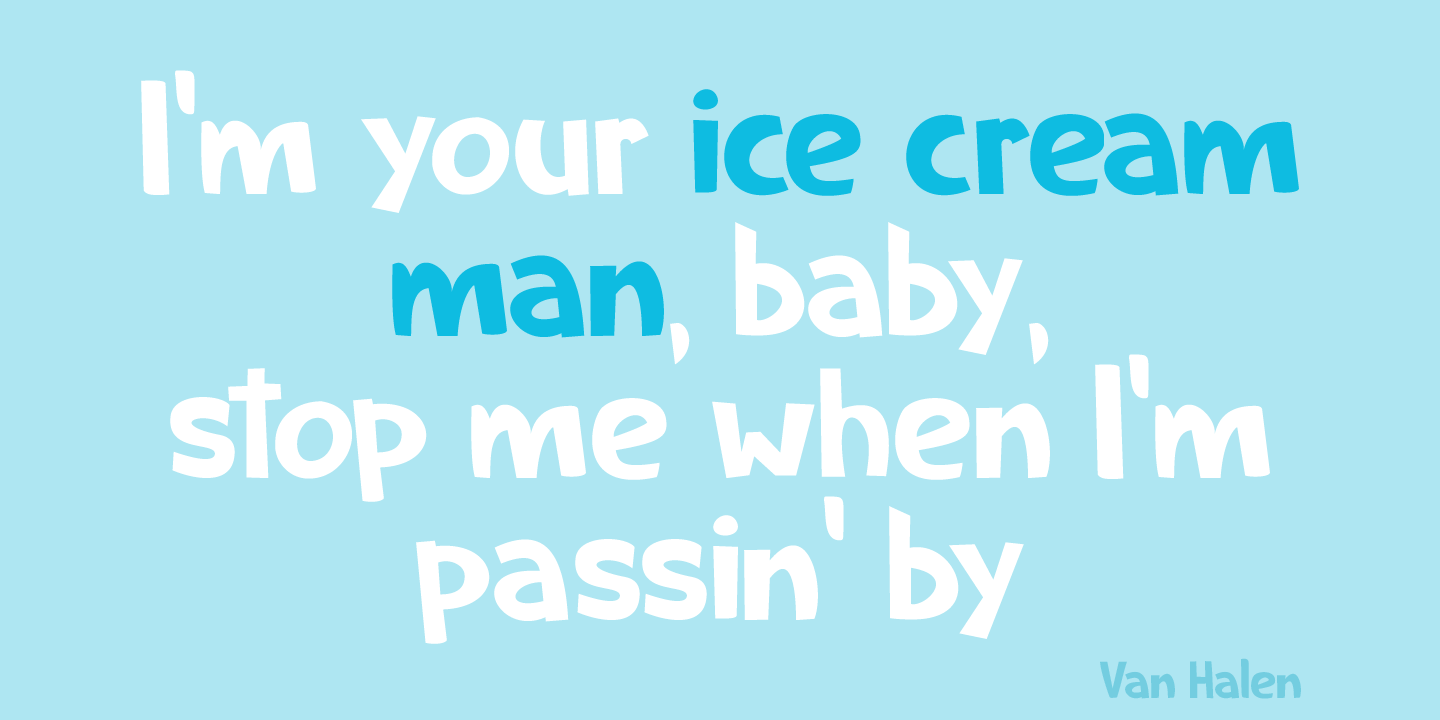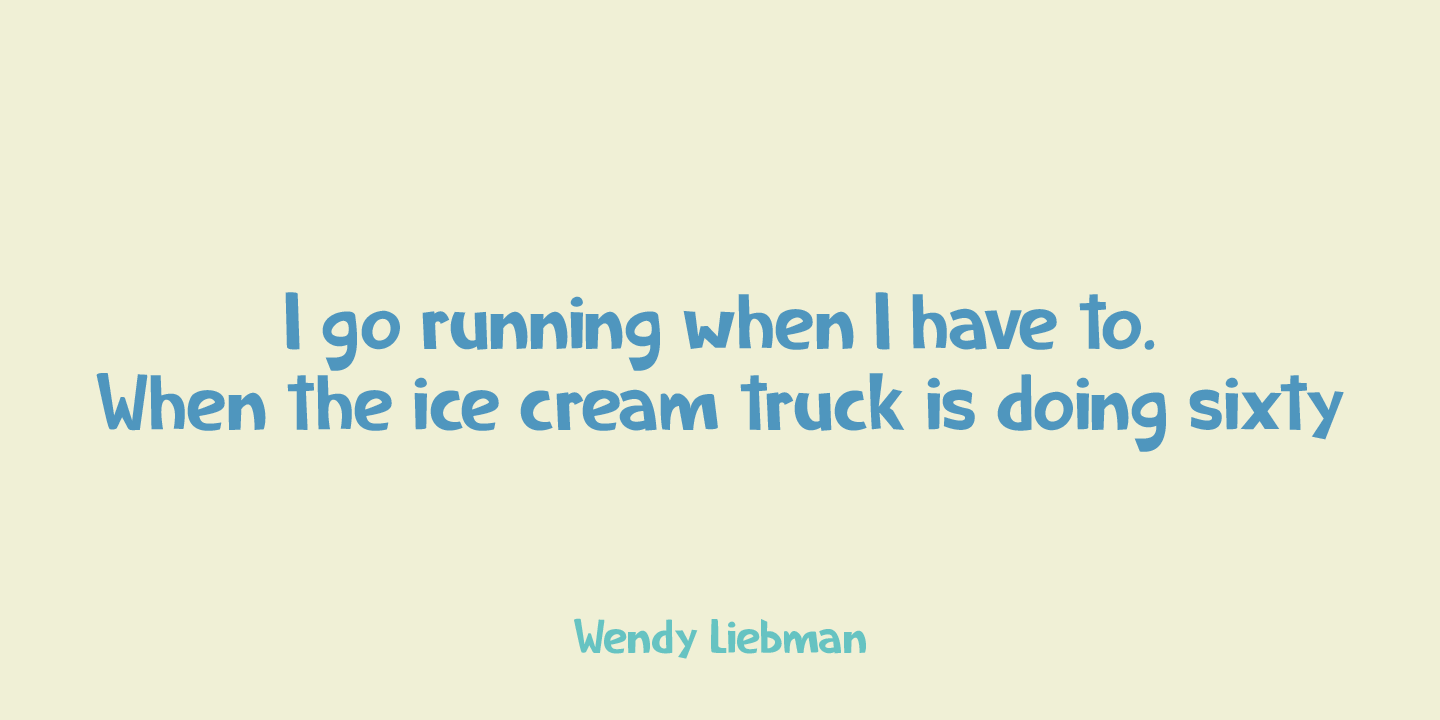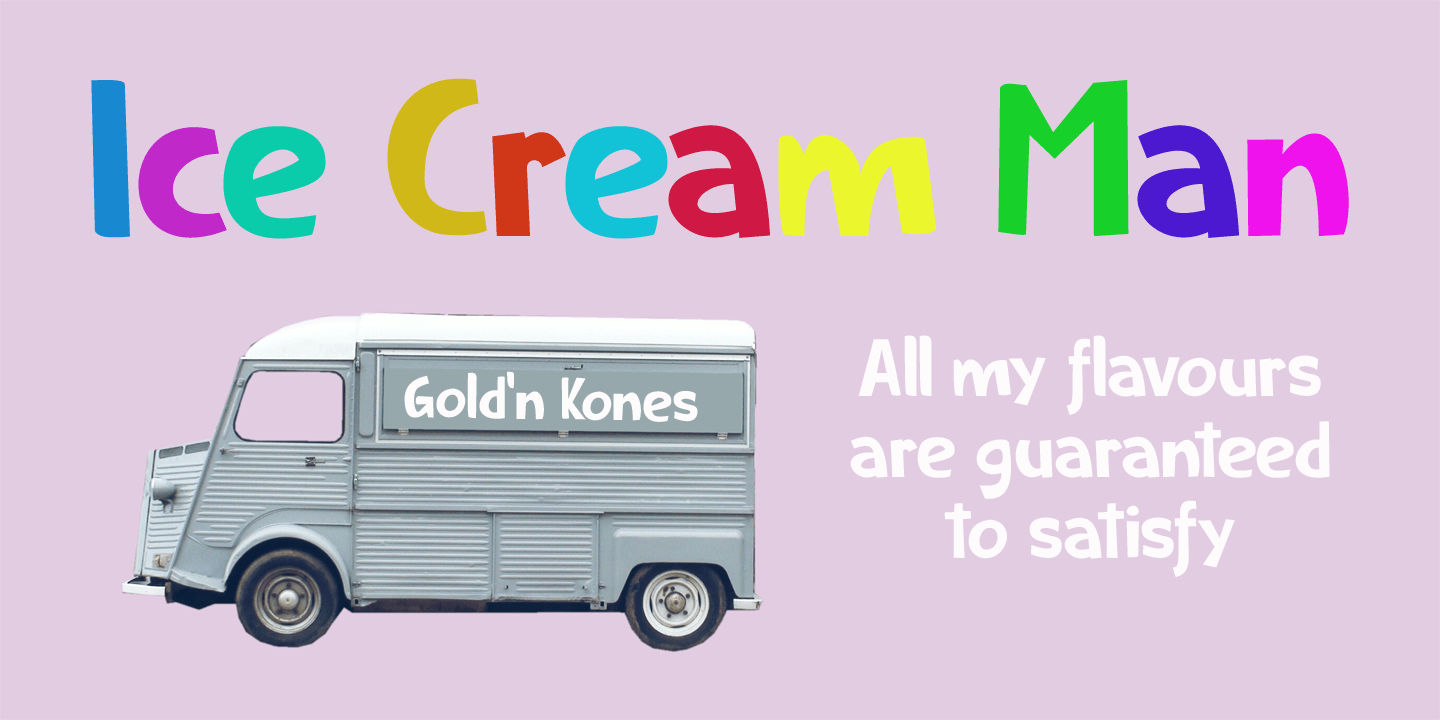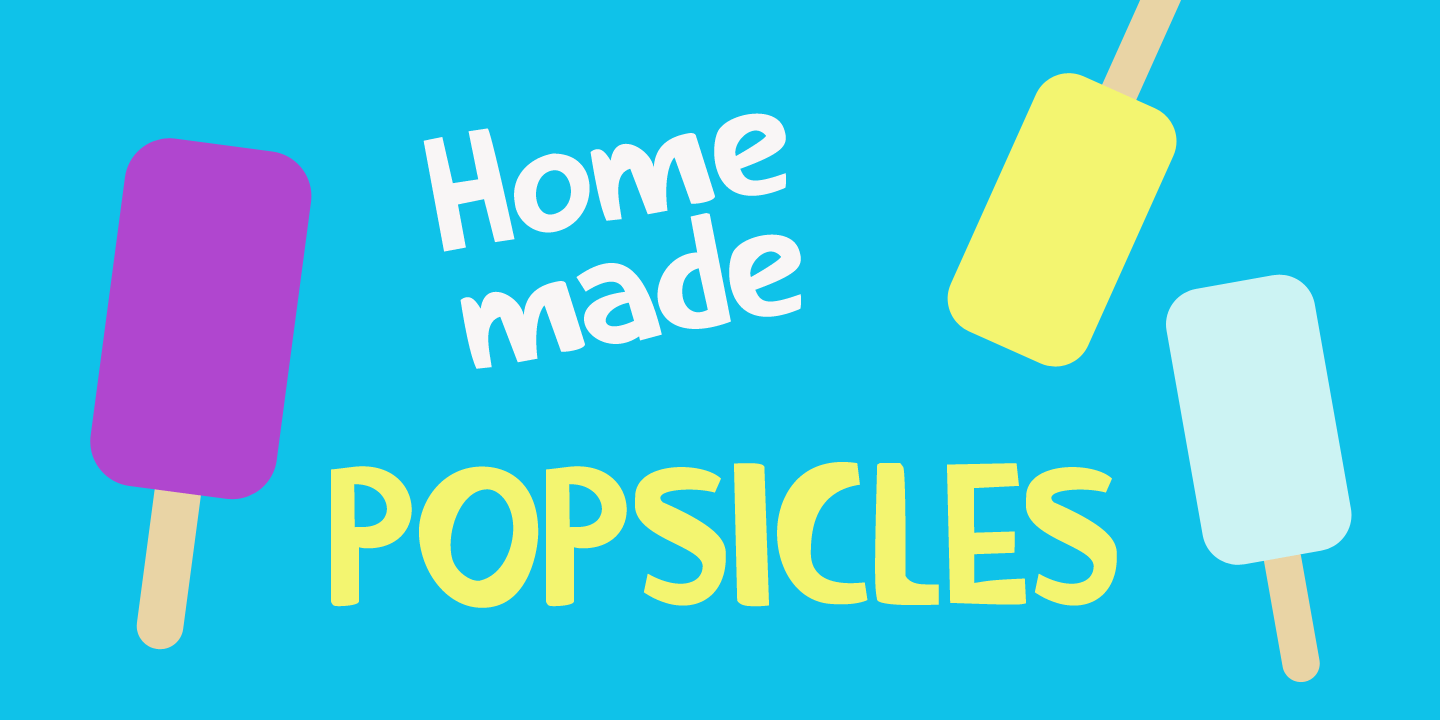
Ice Cream Man
About Ice Cream Man
I was listening to an old Van Halen album when I made this font. I named it after one of my favourites: ?Ice Cream Man?. Ice Cream Man is a happy, sloppy, wobbly kids font. Use it for your book covers, posters and ice cream packaging!